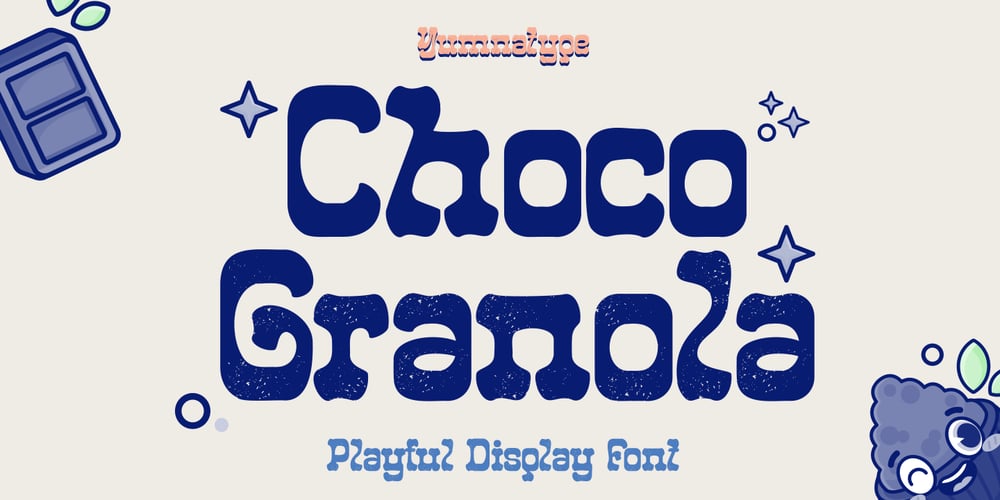
Choco Granola Font Family was designed by Donis Miftahudin and published by Yumna Type. Choco Granola contains 2 styles and family package options. Indulge in the delightful charm of Choco Granola, a playful display font that brings a sweet and whimsical touch to your designs. Each letter in Choco Granola is meticulously designed with rounded shapes that add a soft and inviting vibe to your text. The thick bobo adds a sense of solidity and presence. Additionally, the uneven outline adds an extra layer of quirkiness and character to the font, adding to its unique charm. What sets Choco Granola apart is its ability to convey a sense of joy and whimsy. In addition, enjoy the features here.Features: Ligatures Stylistic Sets Multilingual Supports PUA Encoded Numerals and Punctuations Choco Granola fits in headlines, logos, posters, flyers, branding materials, print media, editorial layouts, and many more designs. Find out more ways to use this font by taking a look at the font preview.Thanks for purchasing our fonts. Hopefully, you have a great time using our font. Feel free to contact us anytime for further information or when you have trouble with the font. Thanks a lot and happy designing.